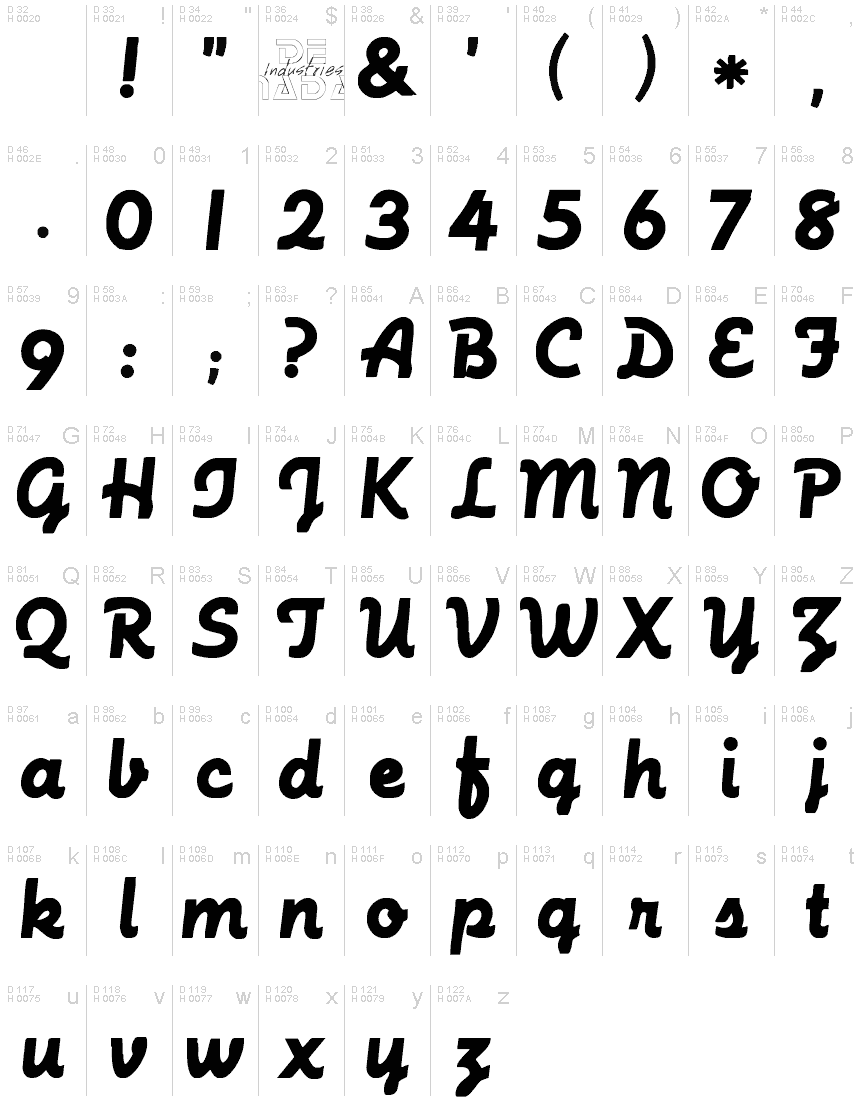
MachineScript
Machine Script is a captivating handwritten font that exudes a striking blend of elegance and modernity. Crafted by DeNada Industries, this font boasts a fluent, cursive style with distinct character that immediately grabs attention. The smooth, flowing lines and natural variations lend an authentic, handcrafted feel, perfect for a wide range of design applications, from editorial layouts and product packaging to branding and social media visuals.
Machine Script's versatility shines through, effortlessly conveying a sense of artistry and sophistication that can elevate any project.